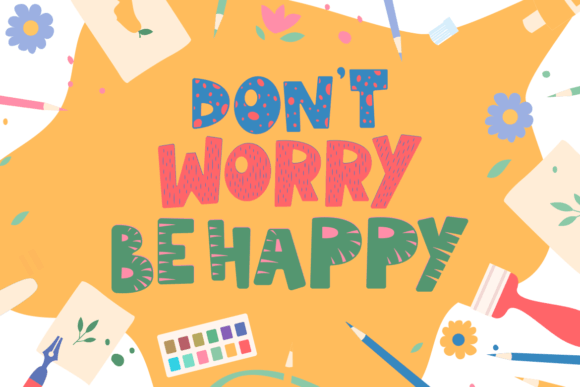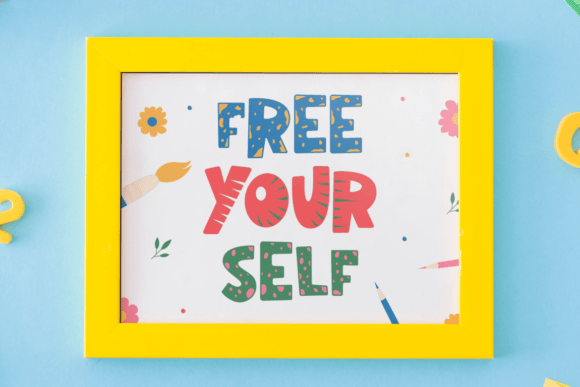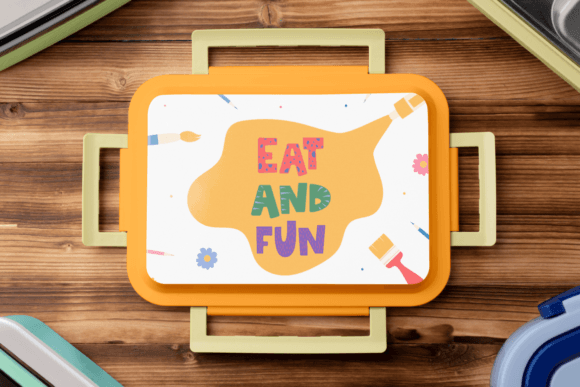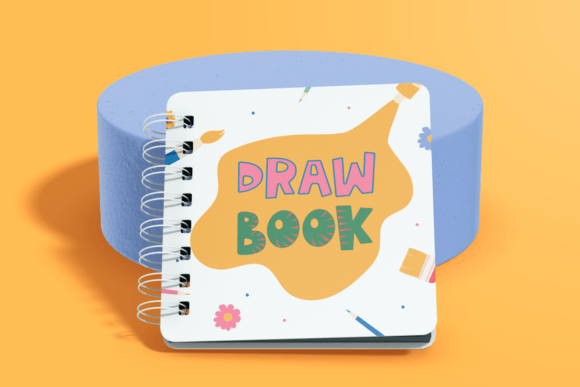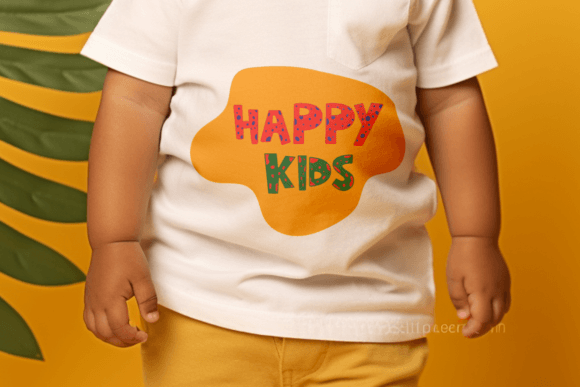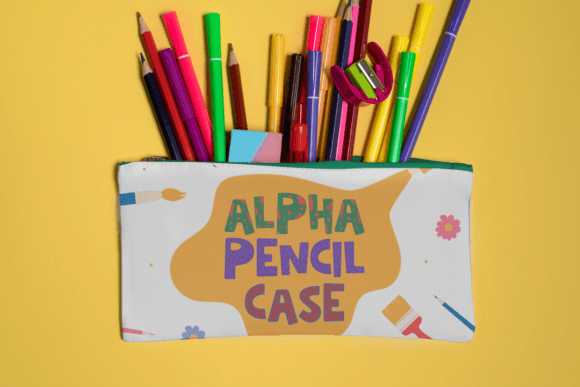
Introduction to Carve Craft Font Font
Fonts play a crucial role in design, and the Carve Craft Font font is a typeface that brings both character and versatility to any project. Whether you’re working on a branding project, a website, or a print design, the Carve Craft Font font offers a unique style that can elevate your work.
Step into the world of creativity with Carve Craft – Craft Font, a typeface that embodies the spirit of handmade artistry.
This font is not just a set of characters; it’s a toolbox for imagination, designed to bring your projects to life with its display of fun and playful letterforms Each stroke of Carve Craft is infused with the joy of crafting, making it an ideal choice for logos, branding, and any design that calls for a personal touch.
Key Features of Carve Craft Font Font
Why Choose Carve Craft Font Font?
The Carve Craft Font font is more than just a typeface – it’s a design tool that helps you communicate your message with style and clarity. Its unique character set and versatile design make it suitable for a wide range of applications, from elegant invitations to bold headlines.
With its carefully crafted letterforms and balanced proportions, the Carve Craft Font font ensures readability and visual appeal across all mediums.
What makes Carve Craft Font font special?
The Carve Craft Font font stands out with its unique design, exceptional readability, and versatility across various design applications.